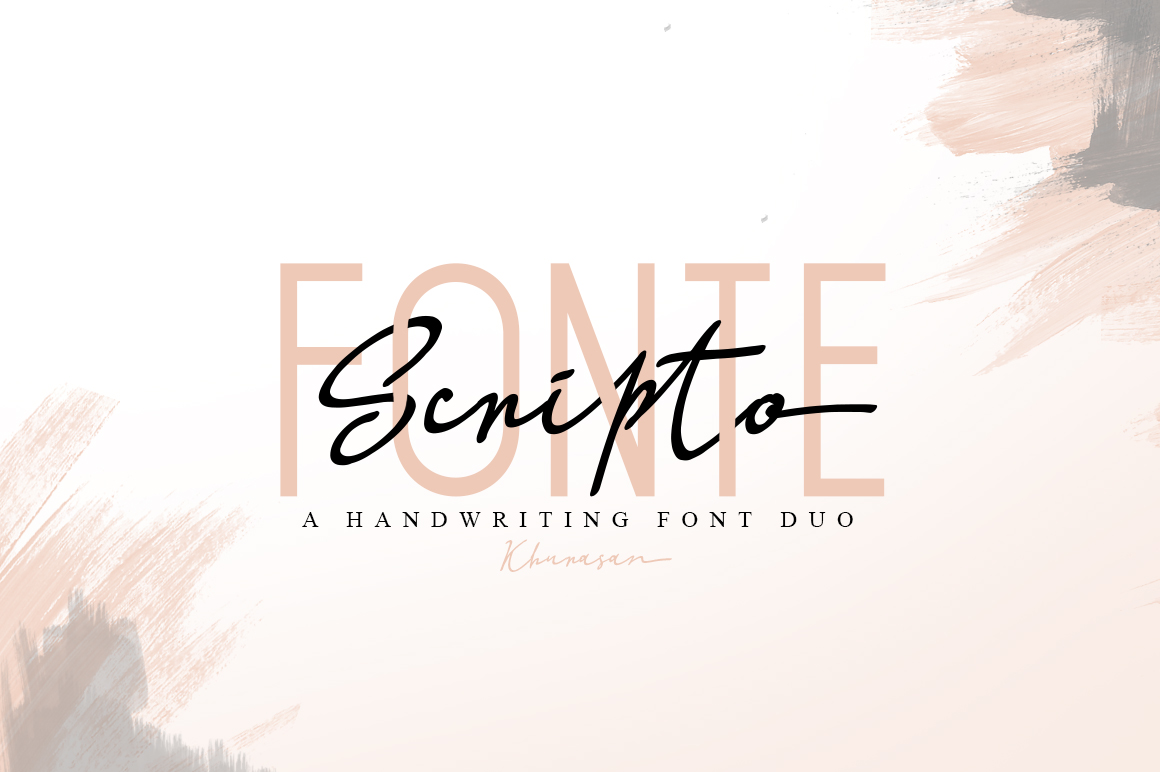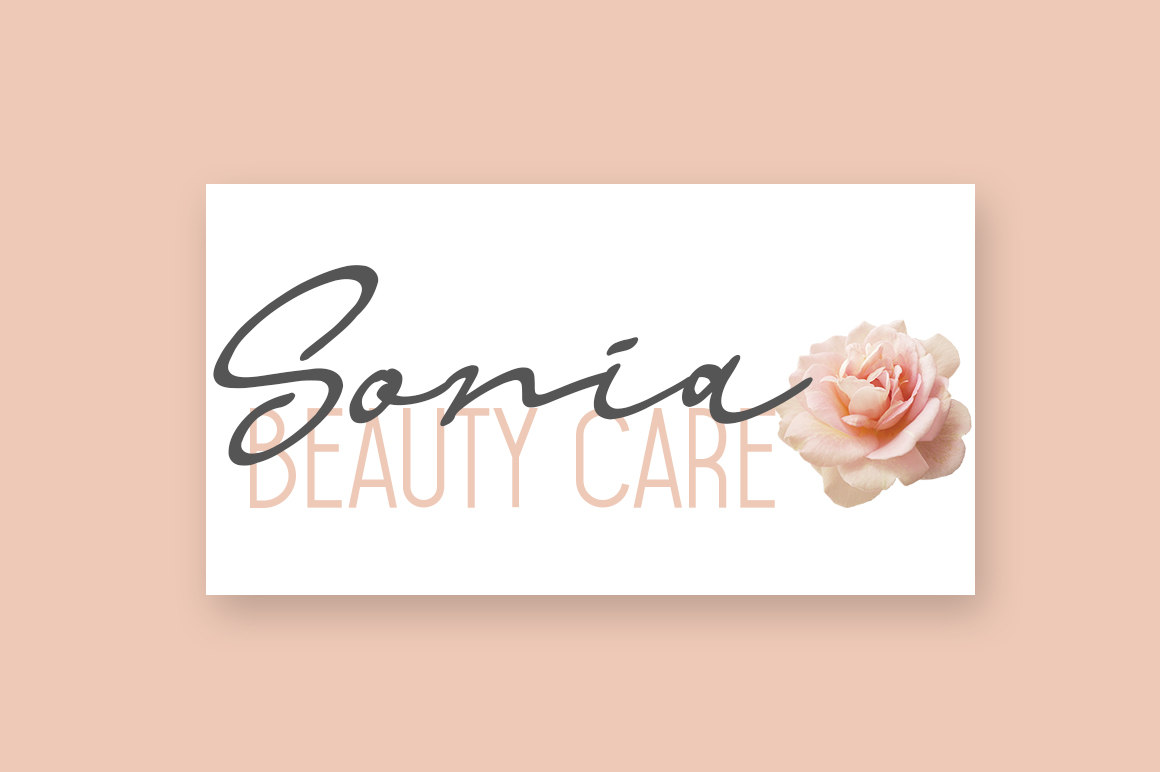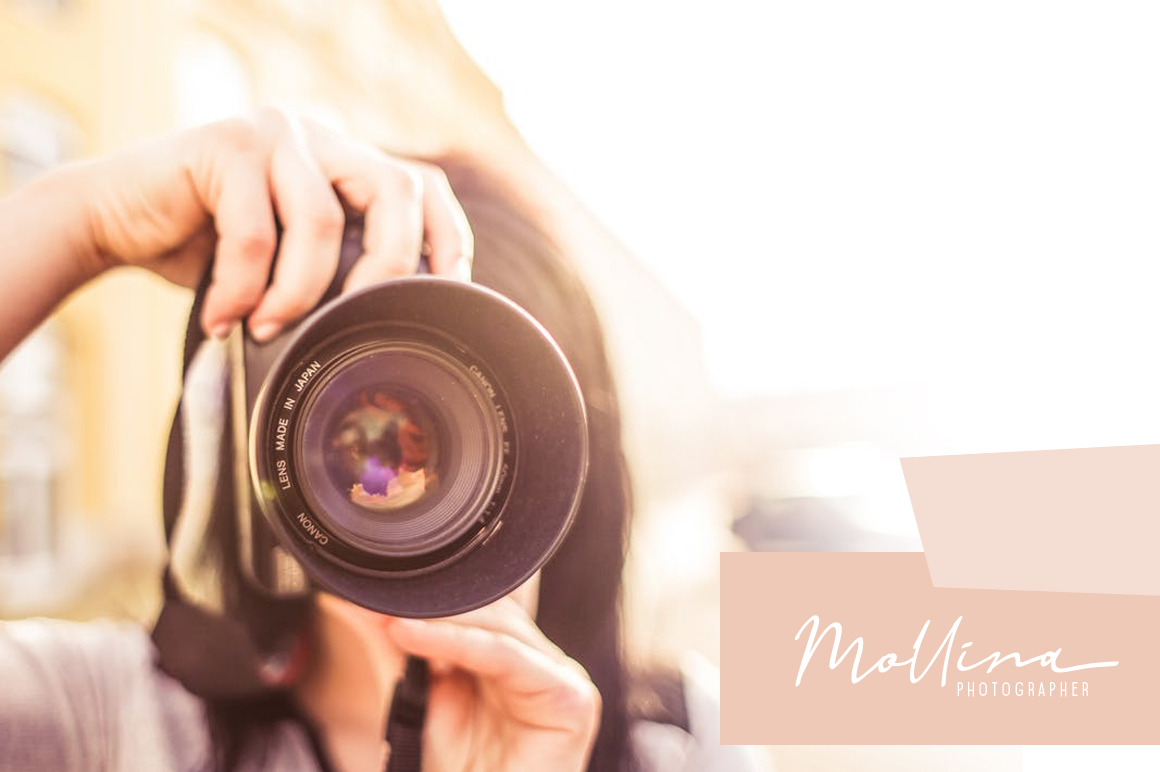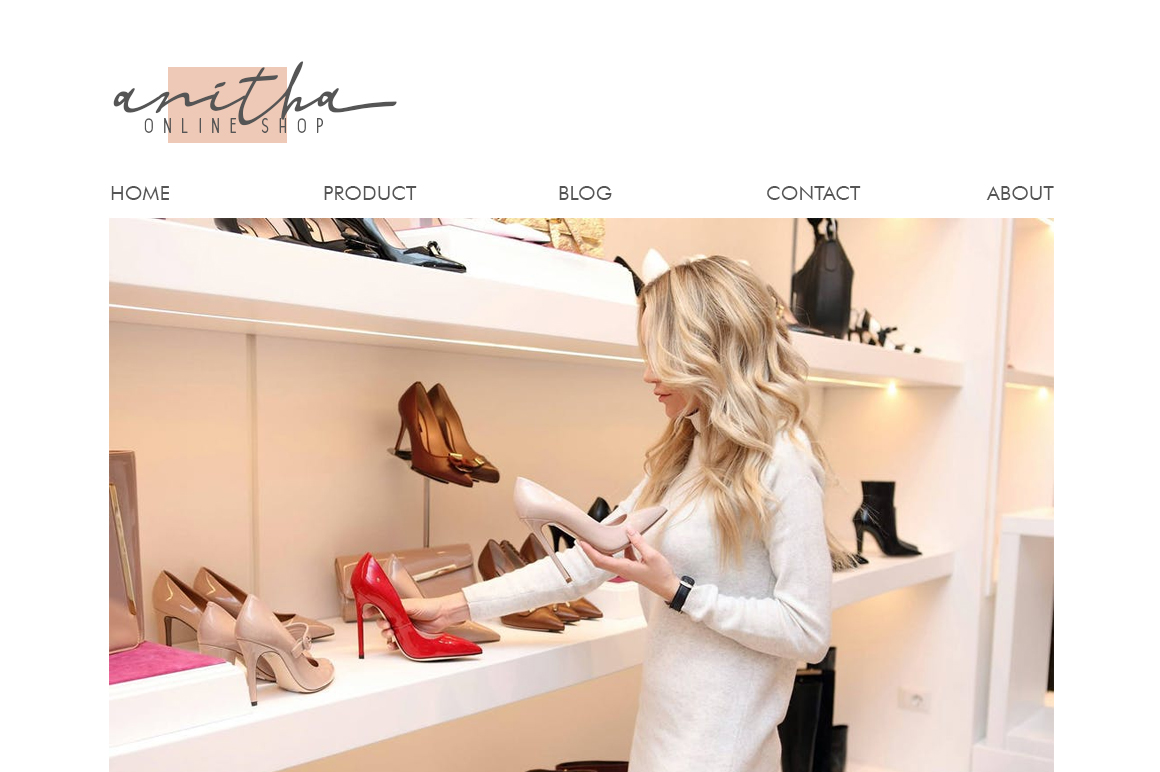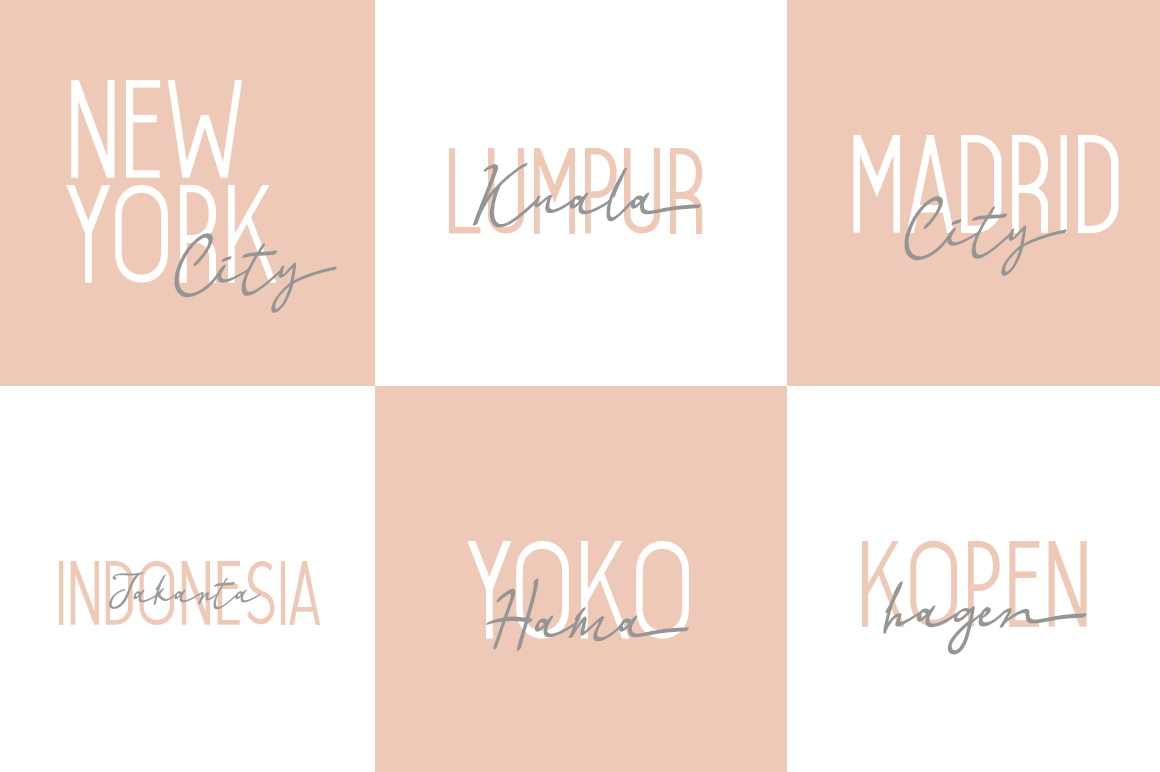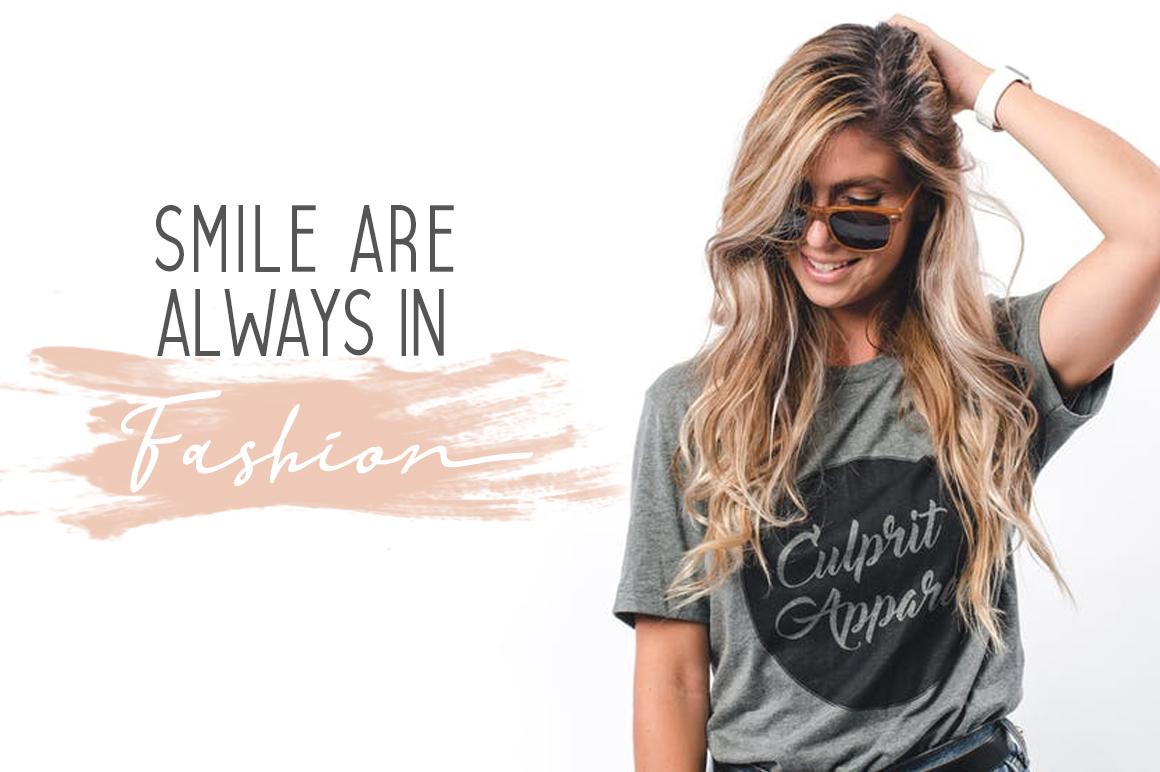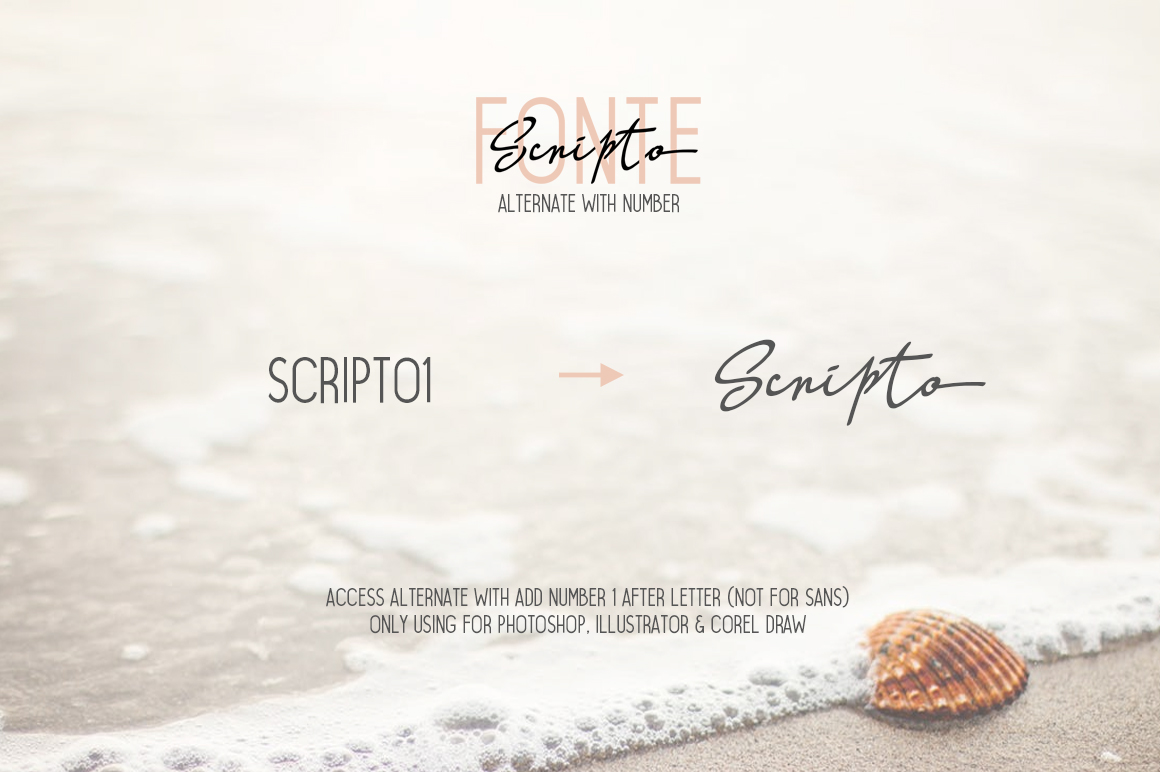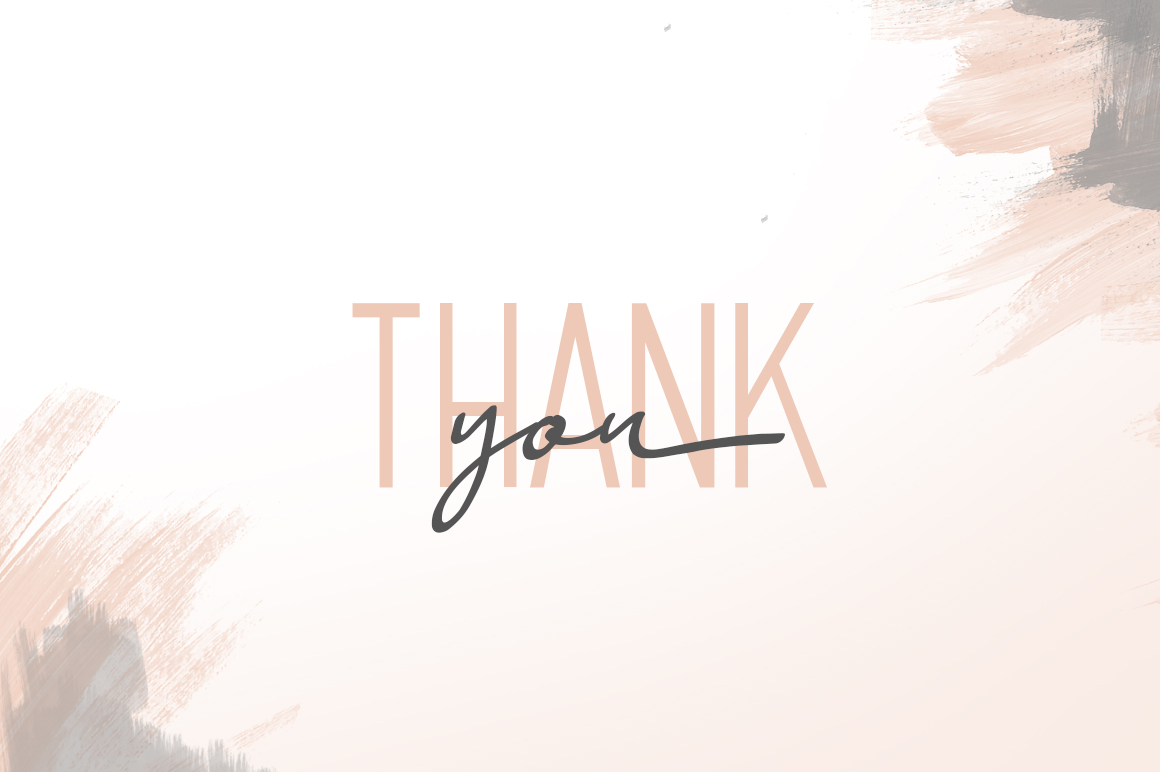
Scripto Fonte Font
Scripto Fonte is a lovely font duo, perfectly complementary to one another. With a casual elegance, Scripto Fonte is a great way to give your designs an editorial or fashion oriented appeal.